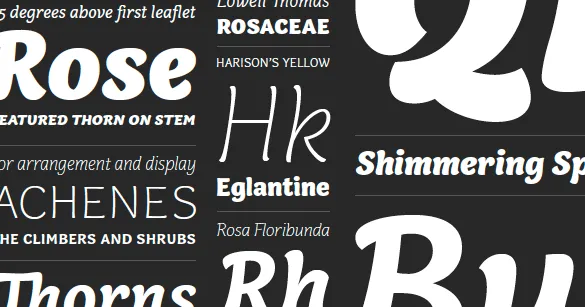
New Release: Capucine
More than four years in the making, we’re proud to finally announce the release of Capucine, a new family of types designed by Alice Savoie. With influences ranging from calligraphy to Art Nouveau to brush scripts, this five-weight family offers – to put it in a single phrase – joie de vivre. See more of Capucine and learn all the details about our latest release.